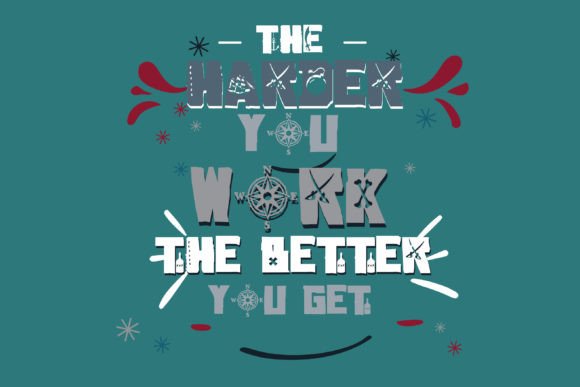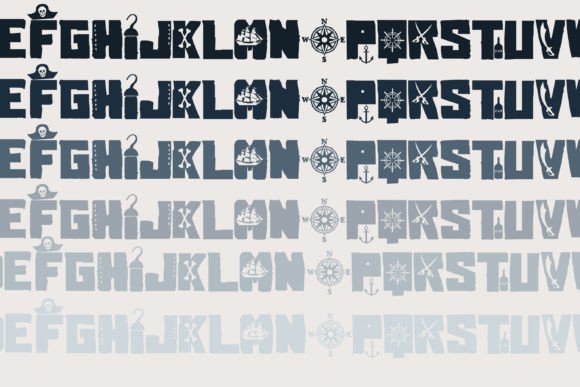
Introduction to Pirate Life Font
Have you ever found yourself stuck on a design project, searching for that perfect font to bring your vision to life? Maybe you’re designing a poster for a pirate-themed party, or creating an invitation for a treasure hunt. Whatever the project, we’ve all been there – staring at a blank page, desperate for inspiration. But what if I told you that the perfect font for your creative project is just a click away?
Introducing the Pirate Life Font, a treasure trove of typographical delights. This font is packed with pirate charm, featuring letters shaped like pirate hats, swords, and treasure chests. Whether you’re looking for a design resource to add some swashbuckling flair to your designs or just want to spice up your creative project, the Pirate Life Font is the perfect choice.
Key Features of Pirate Life Font
- High-quality design resource suitable for various creative projects
- Unique pirate-themed design elements, making it perfect for nautical or adventure-themed projects
Honest Review: Pirate Life Font
As a designer, I’m always on the lookout for unique and high-quality design resources to elevate my creative projects. The Pirate Life Font caught my attention, and I decided to give it a try.
What works well: ✨ The font has a charming, vintage vibe that’s perfect for projects that need a touch of adventure and whimsy. The clean lines and classic feel make it versatile enough to use in a variety of contexts, from logos to typography-heavy designs.
- High quality: The font is crisp and clear, even at small sizes.
Limitations: ⚠️ While the font is great for many applications, it may not be the best choice for projects that require a modern, minimalist aesthetic. Additionally, some users may find the font’s vintage style a bit overused.
Overall, I’m impressed with the Pirate Life Font. Its unique style and high quality make it a valuable addition to any designer’s toolkit. If you’re looking for a fun and versatile font to add some personality to your projects, I’d definitely recommend giving it a try.
Pirate Life Font
The Pirate Life Font is a high-quality design resource perfect for creative projects that require a touch of adventure and swashbuckling spirit. This font is available for free download and features a transparent background, making it easy to integrate into your designs.
Tips for Getting the Most Out of Pirate Life Font
To get the most out of the Pirate Life Font, experiment with different font sizes, colors, and styles to create a unique and eye-catching look. You can also pair the font with other design elements, such as images and graphics, to create a cohesive and engaging design.
The Pirate Life Font is perfect for creative projects that require a touch of adventure and swashbuckling spirit, such as:
- Travel and adventure websites
- Marketing materials for outdoor gear and equipment
- Graphics and posters for pirate-themed parties and events
- Presentations and reports for business and educational projects